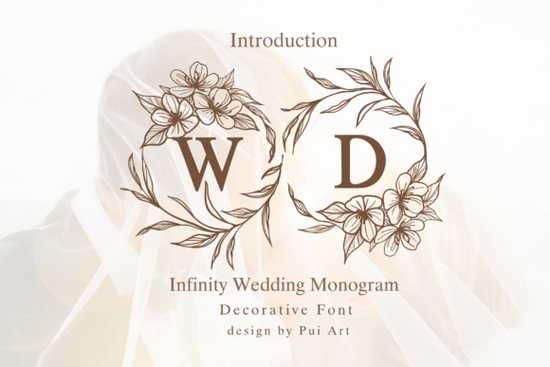
If you're designing wedding stationery, custom monograms, or luxury-branded gifts for couples, the Infinity Wedding Monogram Font is a thoughtful, ready-to-use option that balances elegance with practicality. It’s not just another script font each uppercase and lowercase letter comes pre-embellished with delicate floral wreaths and fine botanical line art, so you don’t need to layer graphics or adjust spacing manually. That saves time whether you're preparing Cricut cut files, sublimation transfers, or print-ready PDFs for clients.
What makes this font different from other decorative fonts?
Most decorative fonts require extra design work: adding vines, adjusting kerning around flourishes, or masking elements to avoid visual clutter. With Infinity Wedding Monogram, the floral framing is built into every character meaning “A” looks intentional next to “B”, and lowercase “g” flows naturally beside “h”. There’s no guesswork about alignment or scale. You get consistent romance across the whole alphabet, without needing advanced vector skills.
This matters especially if you’re creating repeatable assets like a set of 50 personalized wedding napkins or a series of matching bridal shower invitations. Consistency builds trust with clients and keeps your production smooth. You’ll also find it works well alongside other refined typefaces, like the Gayel Font, which offers clean contrast for headings or body text when you want layered typographic hierarchy.
Where does it work best in real projects?
Designers and small business owners tell us they reach for this font most often for:
- Wedding invitations and RSVP cards (especially digital or letterpress-printed versions)
- Bridal logos and boutique branding think “The Wild Rose Studio” or “Maple & Ivy Co.”
- Cricut and Silhouette projects where floral outlines need to cut cleanly
- Sublimation-ready designs for mugs, towels, and keepsake boxes
- Greeting cards for engagements, anniversaries, or vow renewals
- Personalized gifts like wooden signs, acrylic coasters, or framed prints
It’s also popular among print-on-demand sellers who list on Etsy or Redbubble. Because the floral details are subtle not overly dense they reproduce well at smaller sizes (like 12–16 pt) and hold up on textured paper or fabric. No pixelation, no lost detail.
How easy is it to use in common tools?
One thing to keep in mind: because the floral elements extend beyond the standard character bounds, avoid tight tracking or extreme scaling. A little breathing room helps preserve the light, airy feel. If you’re pairing it with another font, try something with soft serifs or gentle sans-serif geometry nothing too bold or geometric, unless you’re aiming for intentional contrast.
Is it worth choosing over similar fonts?
Yes if your focus is weddings, engagements, or luxury personalization. Fonts like the Infinity Wedding Monogram Font are purpose-built for that niche. Compare it to general-purpose calligraphy fonts (which often lack thematic cohesion) or standalone floral dingbat sets (which require manual placement). Here, the integration is baked in saving hours per project, especially when iterating for client feedback.
For crafters who sell physical goods, having a cohesive, on-brand font family means fewer design revisions and faster turnaround. For designers building brand identities for wedding planners or florists, it adds instant tone romantic but not fussy, timeless but not dated.
And if you already own Gayel Font, you’ll appreciate how well its clean, modern lines complement the softness of Infinity Wedding Monogram. Use Gayel for headlines or contact info, and Infinity for names or quotes a simple pairing that feels intentional and polished.
- ✅ Pair it thoughtfully avoid stacking multiple highly decorated fonts; let Infinity shine as the focal point